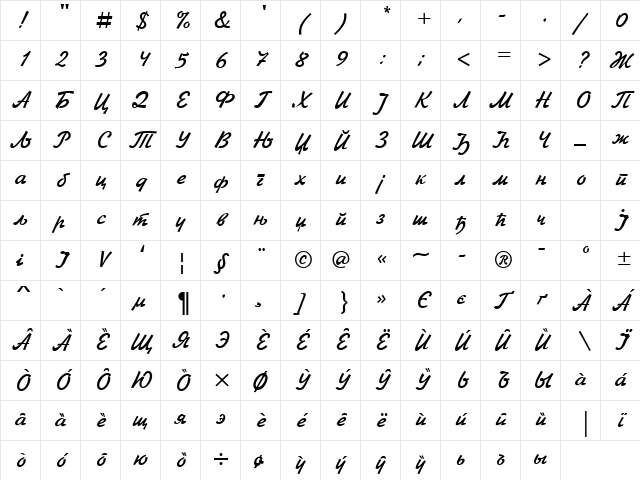
Cir Jikharev Regular Free Font
Cir Jikharev Regular
Complete Cir Jikharev Regular glyph index. Displaying only characters natively supported by Cir Jikharev Regular font.
Design Context for Cir Jikharev
Cir Jikharev is a composed and adaptable typeface that performs quietly and consistently across a wide range of design contexts.